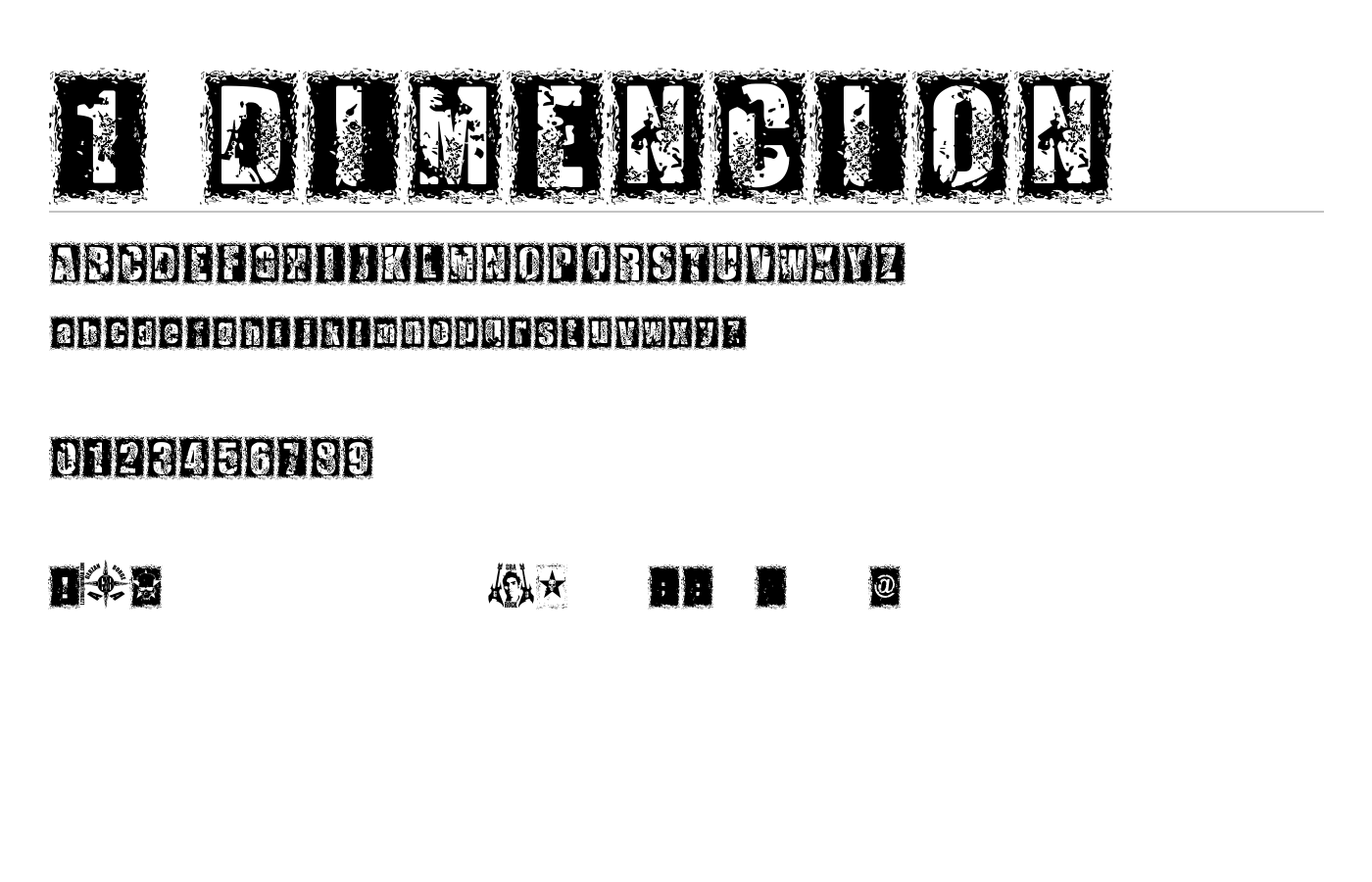
1 DIMENCION is a bold and distressed sans serif font characterized by its grungy, textured blocks that give each letter a rugged, stamped appearance. This font blends a strong, industrial feel with a raw, urban edge, making it ideal for impactful headlines, posters, and branding that seeks a rebellious or vintage vibe. Its edgy style works best in creative projects that want to stand out with a bold, unconventional personality.